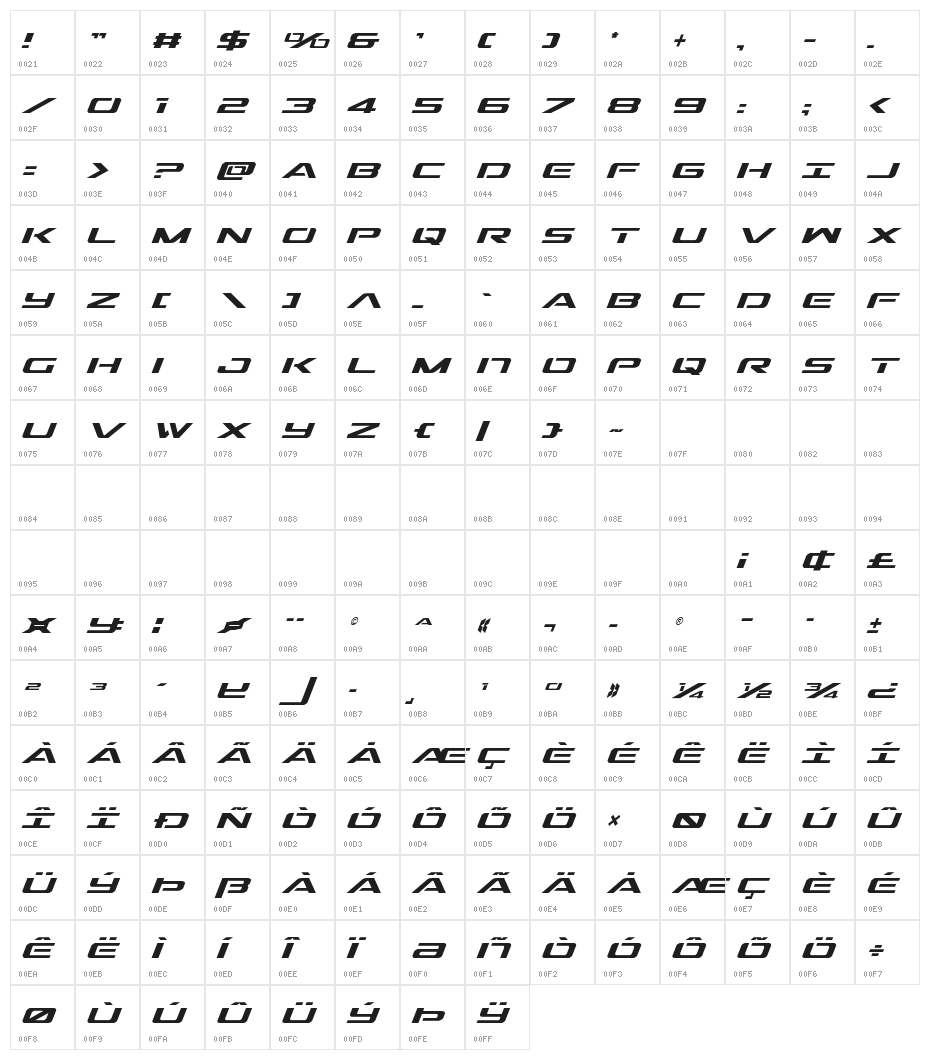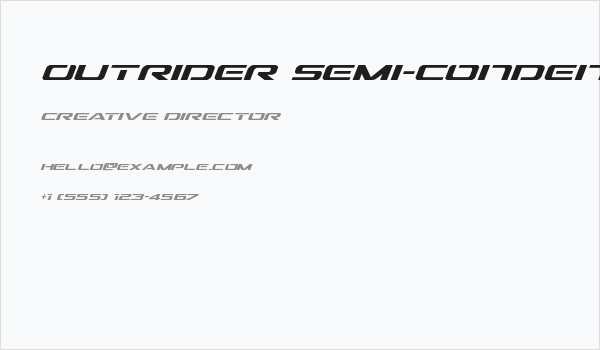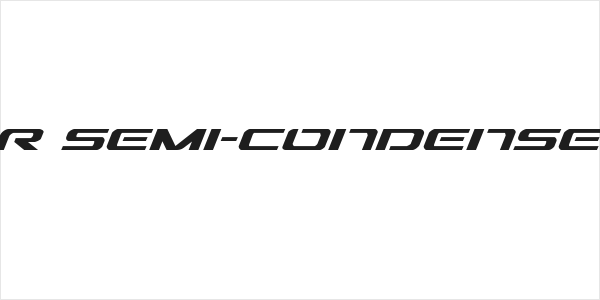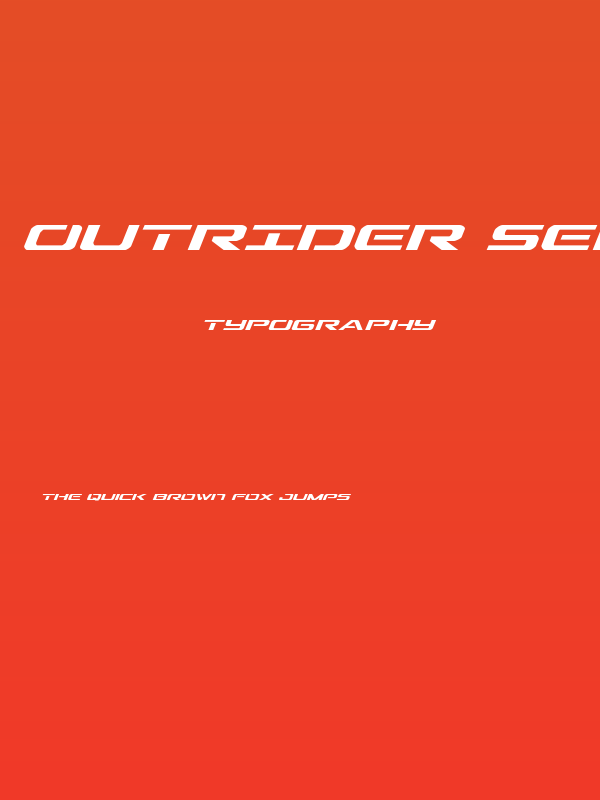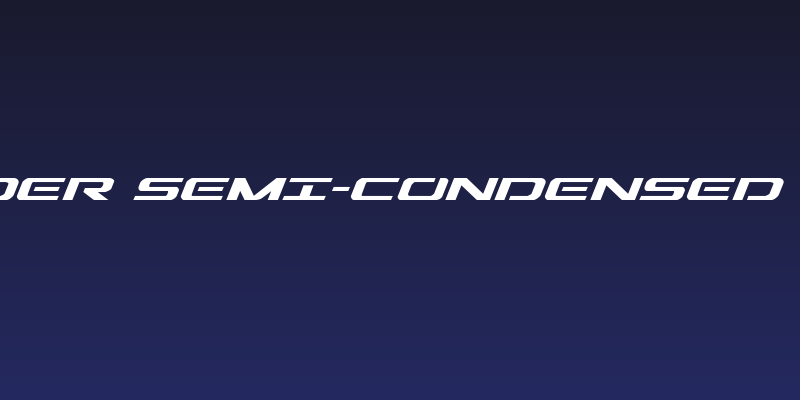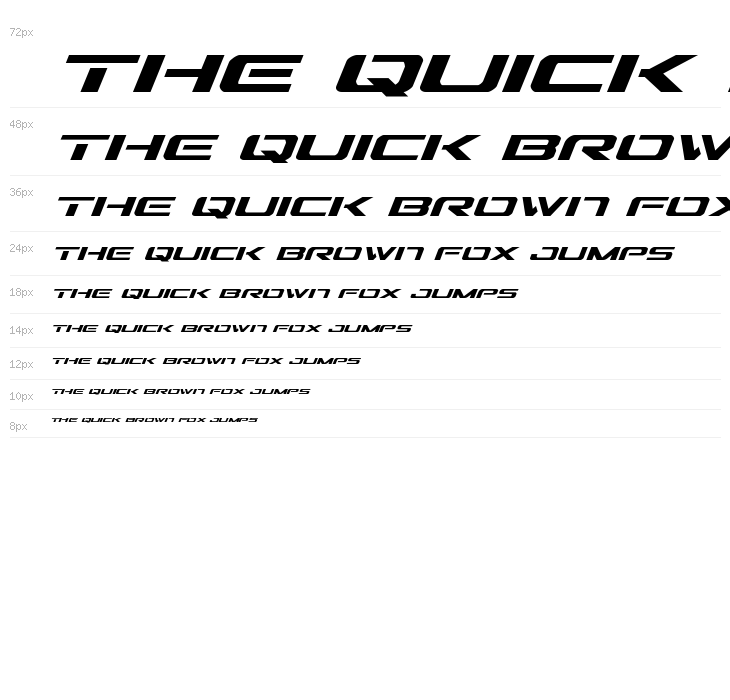
Outrider Semi-Condensed Italic Font
Outrider Semi-Condensed Italic Description
This font features a sleek, italicized design with a semi-condensed structure, giving it a dynamic and modern appearance. The characters are slightly slanted, enhancing the sense of motion and speed. The strokes are bold and consistent, with a medium contrast that maintains readability while adding a touch of sophistication. The angular cuts and sharp edges contribute to a futuristic aesthetic, making it suitable for projects that require a contemporary and edgy look. The spacing between characters is tight, which complements the condensed width and adds to the compact feel of the font.
| Use Case | Logos, Headlines |
| Proposed Projects | Ideal for branding, sports team logos, automotive designs, and tech-related projects. |